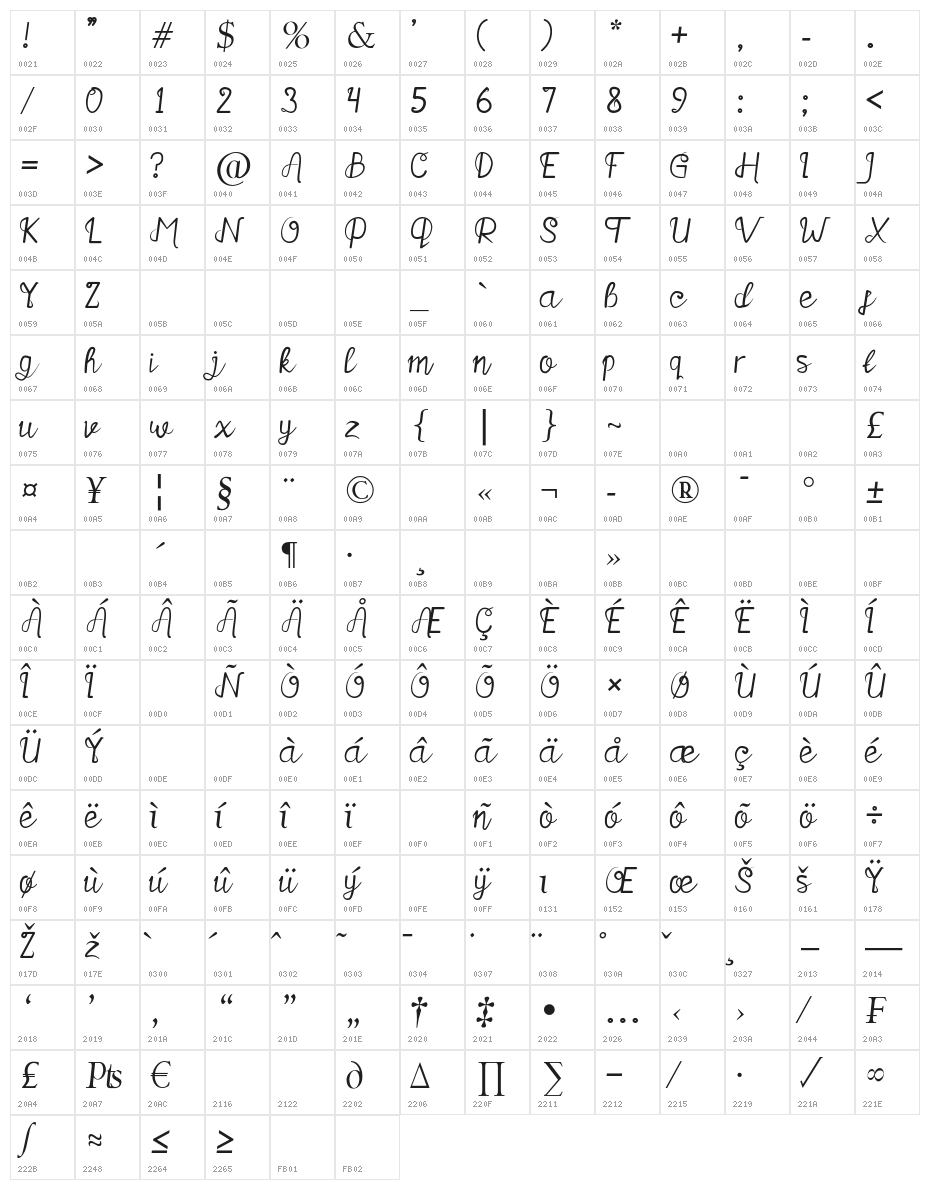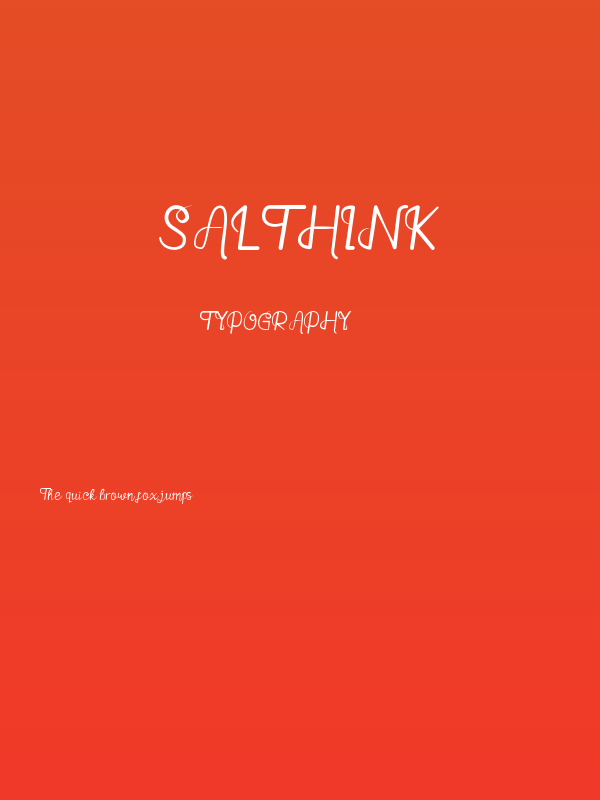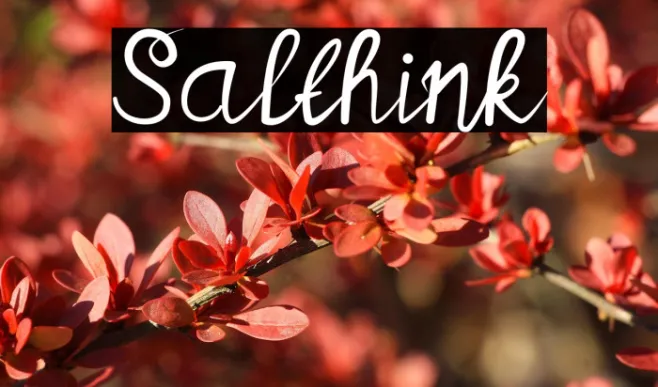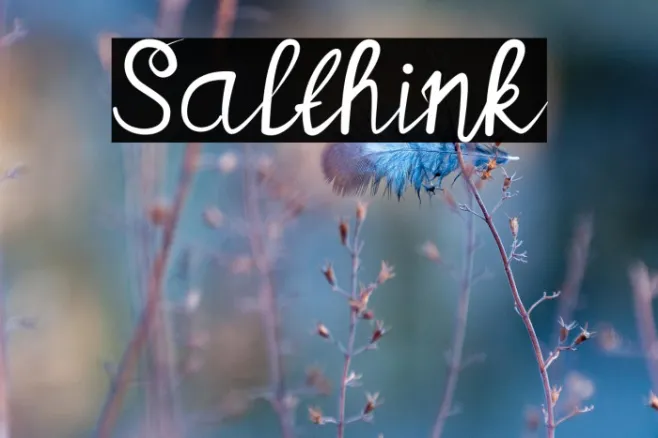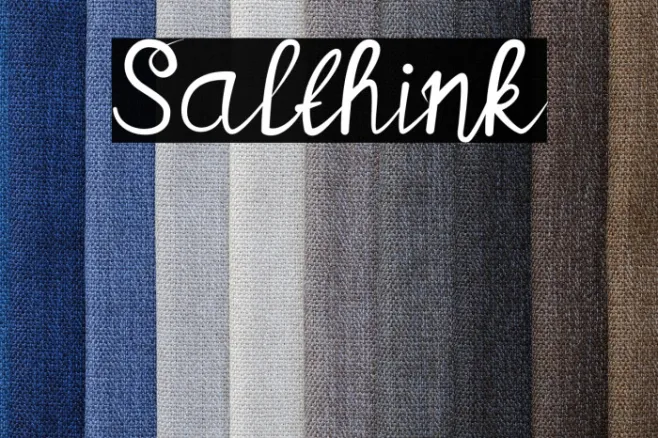
Salthink Font
Salthink Description
This font features a playful and elegant script style, characterized by its flowing, cursive letters with a slight slant. The uppercase letters are bold and distinctive, with unique flourishes that add a touch of sophistication. The lowercase letters maintain a consistent style, offering a harmonious blend of curves and loops that enhance readability. Numbers are clear and well-defined, matching the overall aesthetic of the alphabet. Special characters are creatively designed, maintaining the font's whimsical yet refined appearance. This font is perfect for projects that require a touch of elegance and creativity.
| Overall Style | Elegant, Playful |